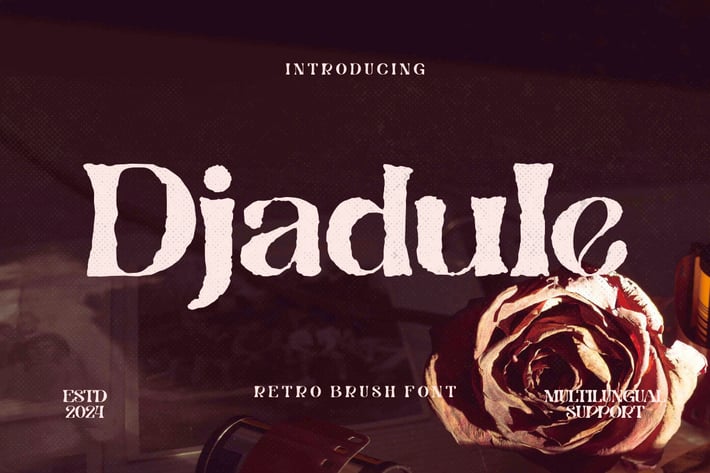
Djadule - Retro Brush Font
Introducing our new product Djadule - Retro Brush Font Modern Font
Djadule - Retro Brush Font - Modern Font is a bold and authentic display font. The font is suitable for any branding project like logo, t-shirt printing, esport, and many more. outstanding in a wide range of contexts.